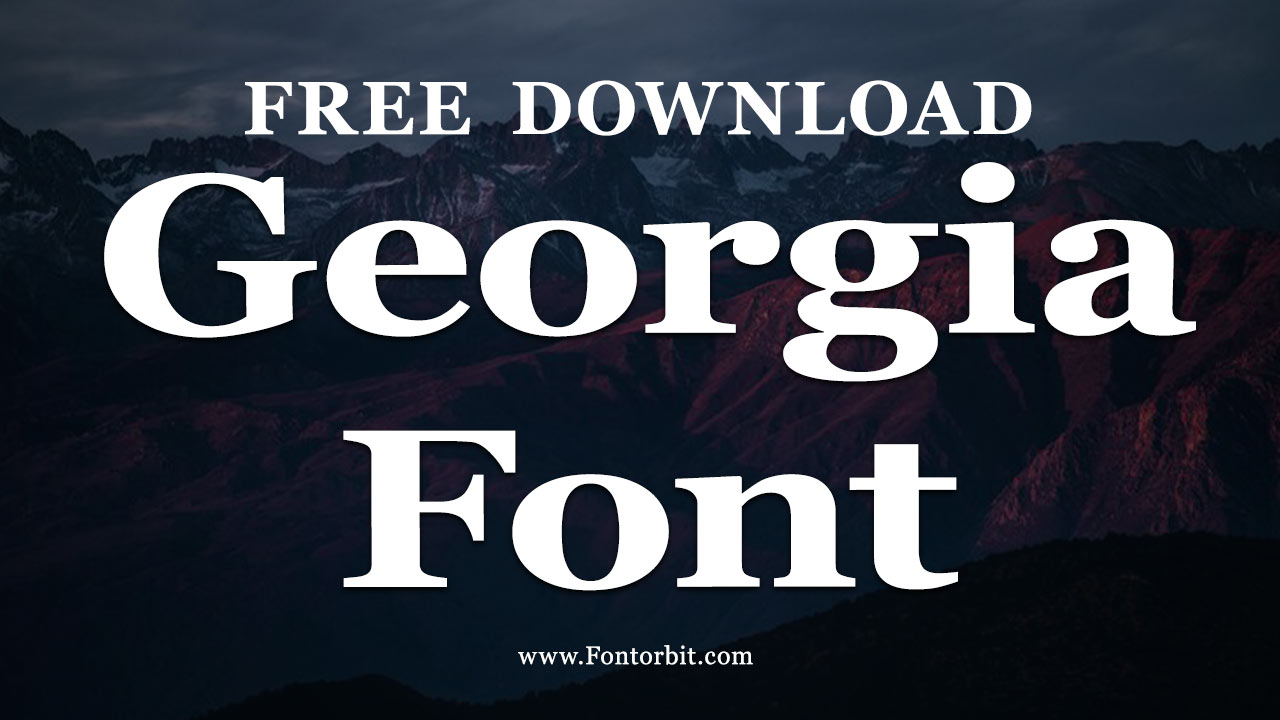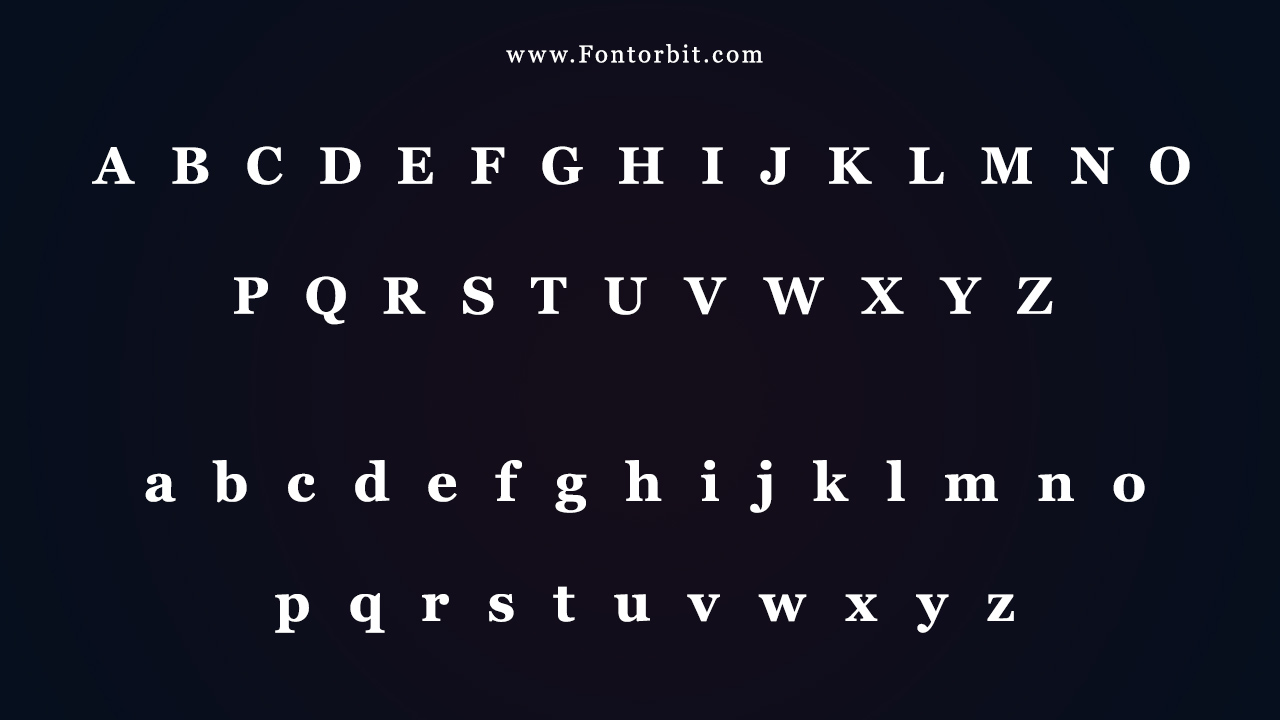
Matthew Carter, the acclaimed type designer, designed the widely recognized serif typeface Georgia, with Thomas Rickner hinting it. Microsoft originally released Georgia in 1993, developing it to be an elegant yet highly legible font, even at smaller sizes or on low-resolution screens.
This font was inspired by Scotch Roman designs of the 19th century and was based on Carter’s work on a print typeface, later released as “Miller.” Its design aims to provide clarity and style in both digital and print formats.
The Georgia Font Family
- Georgia Regular
- Georgia Italic
- Georgia Bold
- Georgia Bold Italic
The Georgia font family offers four styles, providing a range of options for various design needs. As a serif font, Georgia is known for its formal and classic appearance. The designer crafted its characters to provide a sophisticated look while ensuring readability, making it ideal for both digital content and print media.
The font family supports a large array of glyphs and variations, enhancing its versatility across different applications. Its unique characteristics include medium weight, normal width, and an italicized style option that adds a graceful touch to any design.
Notable Uses: Georgia Font
- Editorial Design
- Corporate Branding
- Book Publishing
- Professional Documents
- online newspapers
- blogs and websites
Designers often choose Georgia for projects that require an elegant yet approachable typeface. Its legibility on screens and in print, combined with a refined style, makes it a go-to choice for designers and typographers alike. The font pairs well with other typefaces, creating a harmonious visual effect in various design formats.
Final Words
Georgia is perfect for those seeking a classic serif typeface with a blend of readability and elegance. Its balanced proportions and clean lines make it a versatile choice for numerous creative applications.
To explore its full potential, you can modify its characters or create unique variations using font editing software like FontForge or Glyphs. Georgia works exceptionally well at various sizes, though its clarity and style shine best in medium to large headings or titles. Its extensive glyph set and flexible nature make it an invaluable asset for designers.
2.What Are The Different Weights Available In The Georgia Font Family?
Georgia comes in two primary weights: Regular and Bold. Each weight has an italicized version for additional stylistic options.
3.How To Create A Modern Look Using The Georgia Font?
Combine Georgia with sans-serif fonts like Arial or Helvetica and use ample white space in your design. This creates a balanced, modern aesthetic, highlighting Georgia’s elegant serif details.
6.How To Use Georgia Font In A Design?
Use Georgia for body text, headings, or accent text to add a formal, classic style to your design. It pairs well with sans-serif fonts for a balanced, sophisticated look.
9.What Are The Best Pairings For The Georgia Font?
Pair Georgia with clean sans-serif fonts like Arial or minimalistic serif fonts like Times New Roman to achieve a refined, balanced design.